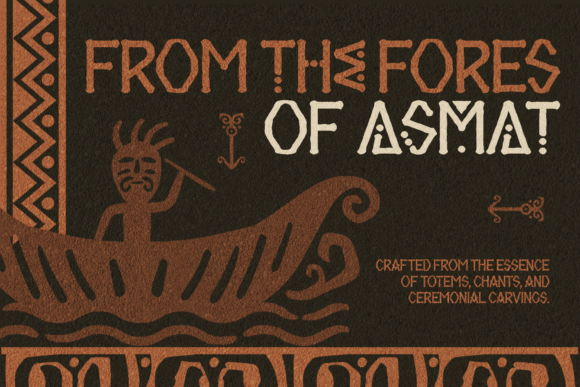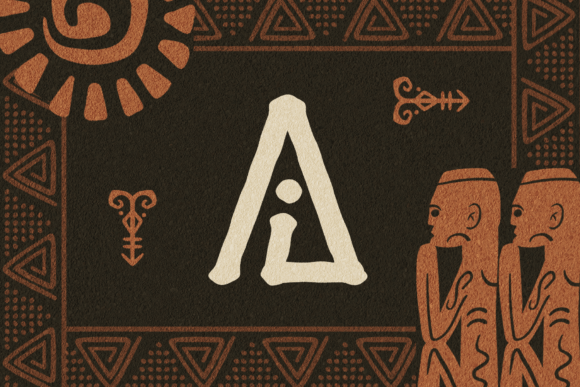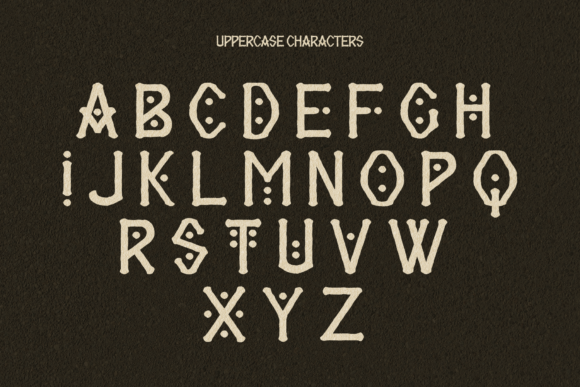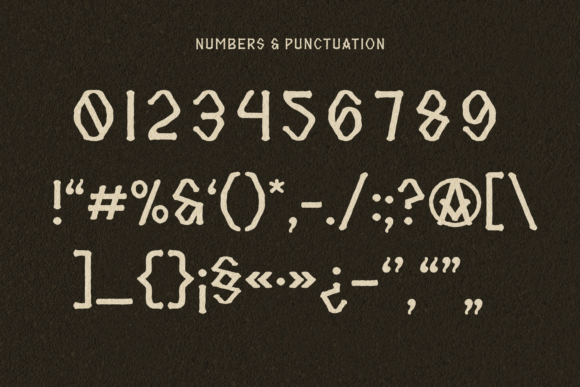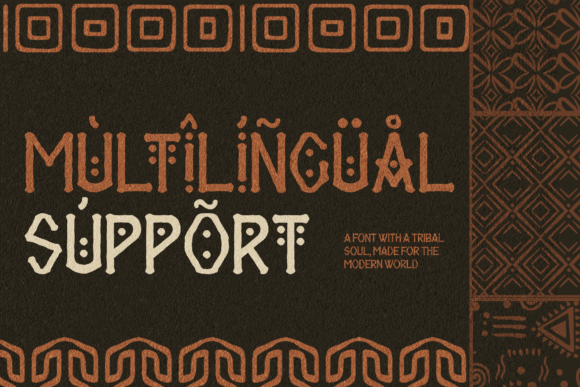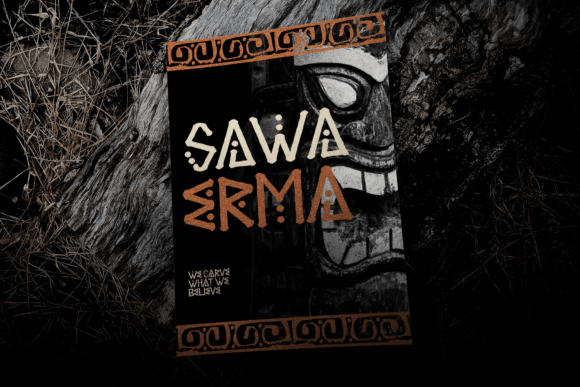
Introduction to Sawa Erma Font
Sawa Erma typeface is a handcrafted tribal font inspired by the ancestral totem carvings and symbolic artistry of the Asmat culture from Papua, Indonesia.
Each letterform in Sawa Erma reflects the raw, organic beauty of woodcut rituals, sacred body markings, and spiritual patterns passed down through generations Itโs a display font that feels primal yet intentionalโideal for cultural campaigns, earthy branding, tribal merchandise, and editorial headlines seeking indigenous authenticity and visual power.
Key Features of Sawa Erma Font